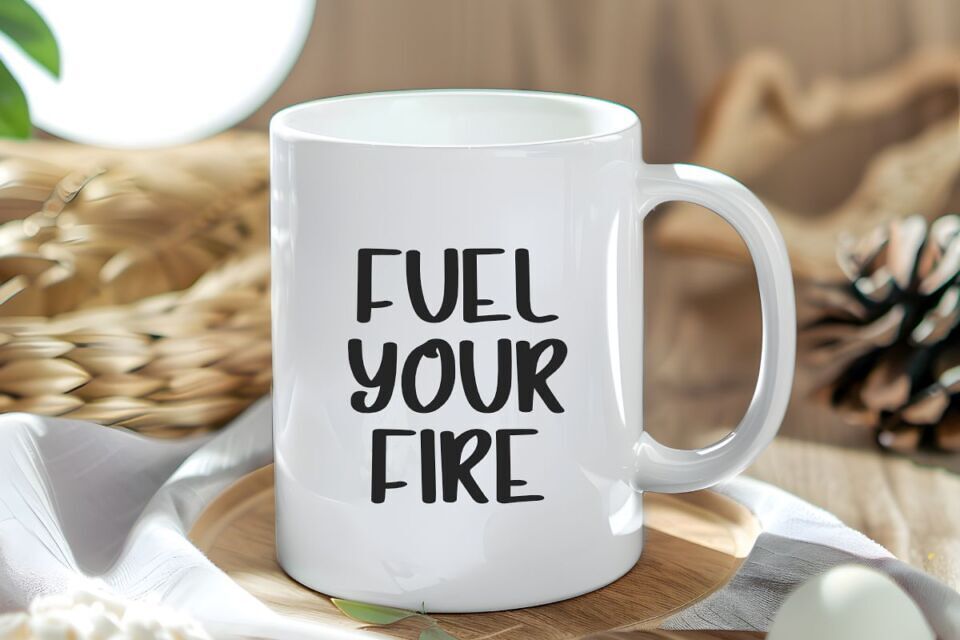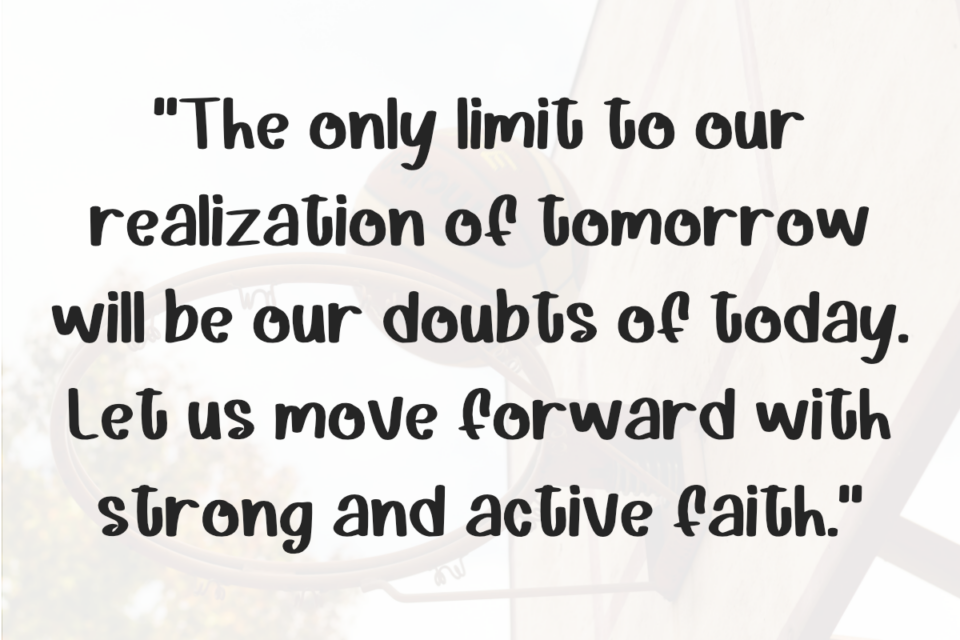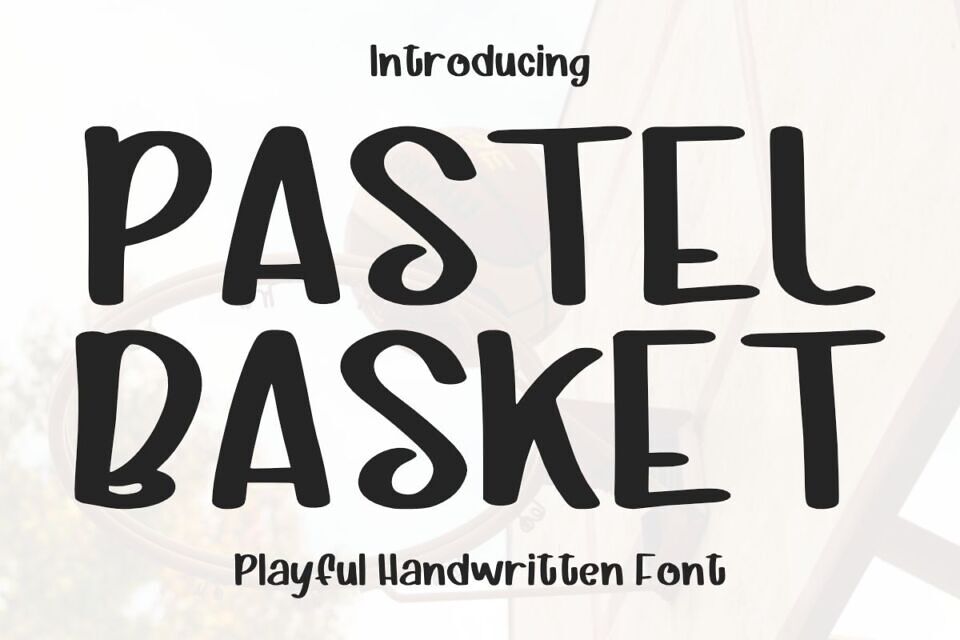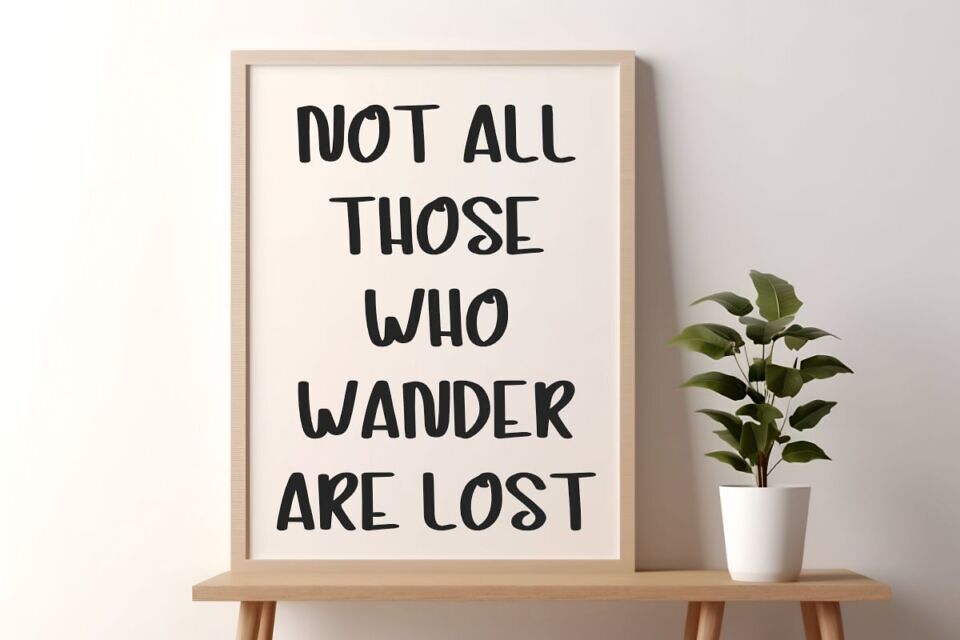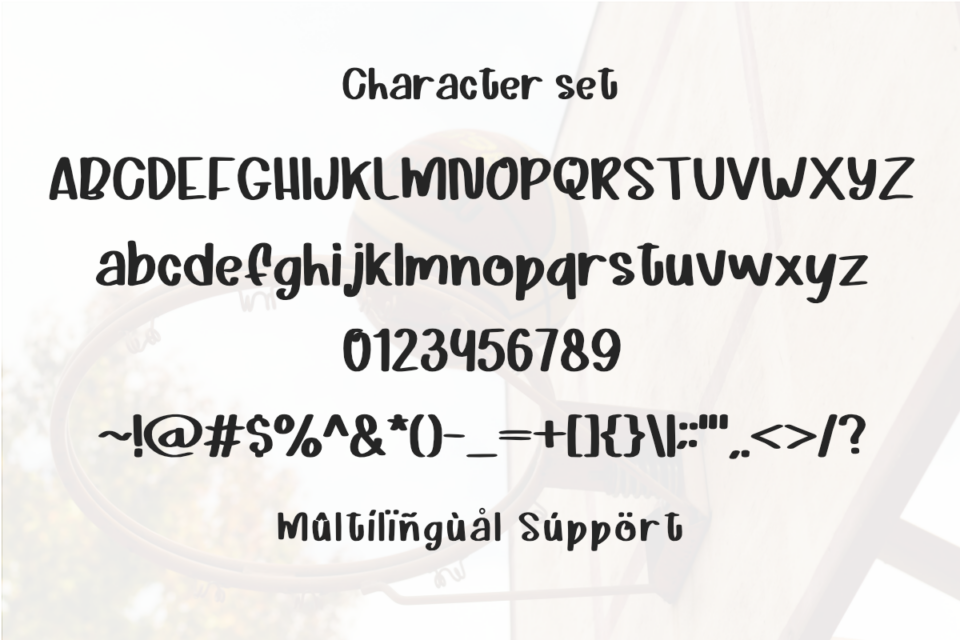
Pastel Basket is a organic handwritten font with an original, organic design. This is a charming, It’s perfect for various uses such as KDP interiors, notes, planners, journals, diaries, notebooks, printables, notepads, daily planners, trackers, schedules, organizers, calendars, templates, and stationery.
Ideal for weekly planners, to-do lists, print-on-demand projects, documents, presentations, worksheets, spiral notebooks, monthly planners, and notebook paper. It’s also great for invitations, birthday cards, celebrations, greeting cards, event banners, gift boxes, Cricut crafts, and silhouette projects.